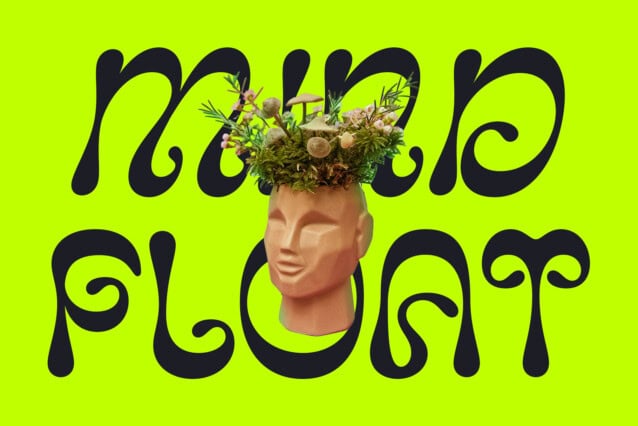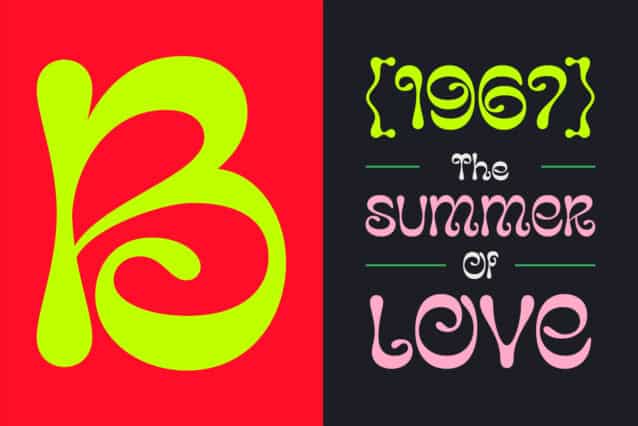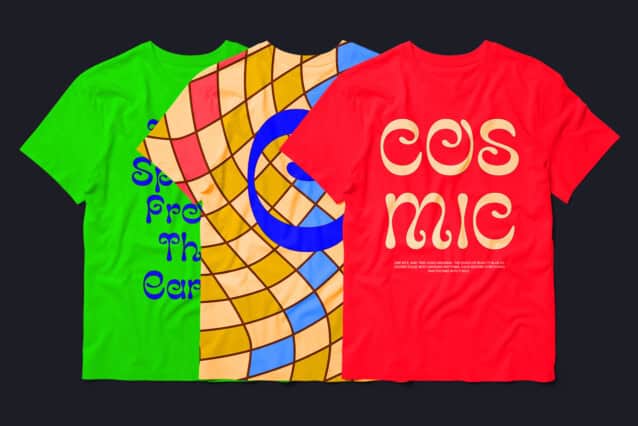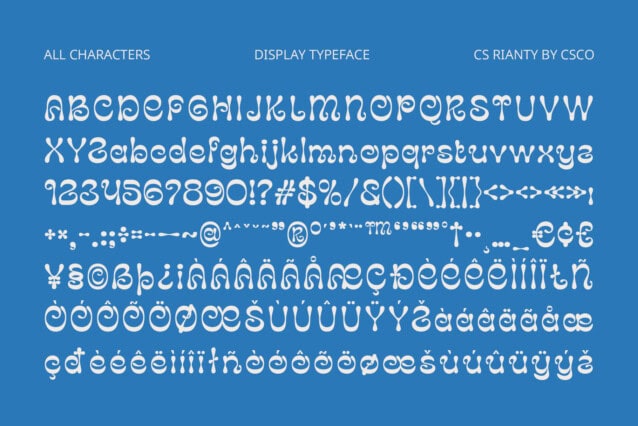
CS Rianty Font
CS Rianty Font is a modern psychedelic display font designed to bend perception and create visual intrigue. With liquid-like curves, distorted letterforms, and dynamic movement, it delivers a free-flowing, surreal aesthetic that captures the essence of trippy, dreamlike typography.